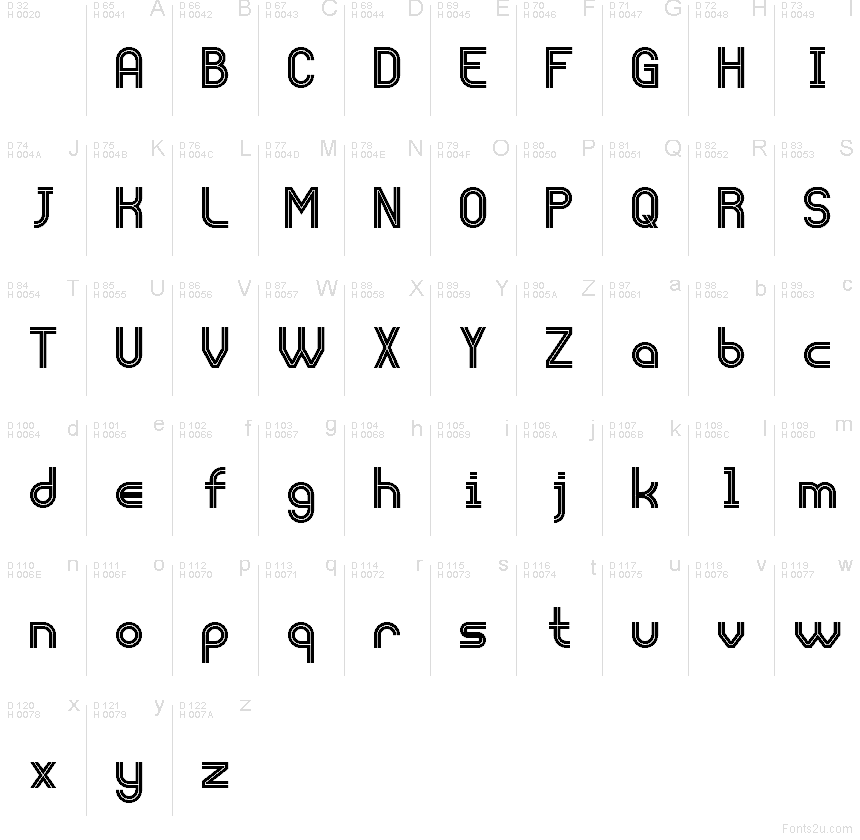
Liquidrom Bold Regular
Liquidrom Bold font by Vladimir Nikolic is a free futuristic outline display typeface in the Liquidrom family. Its smooth, tubular curves and double-line construction feel like glowing neon bent into letterform, giving every word a cool, nocturnal energy. The tight, even rhythm of the strokes keeps it clean and legible while still looking experimental and slightly otherworldly.
This free font shines on nightclub posters, electronic music flyers, sci-fi book covers, tech brand logos, and motion graphics titles. Using Liquidrom Bold in large sizes lets the intricate outline structure really breathe, especially against dark or gradient backgrounds. Pair it with a simple geometric sans serif for body copy to keep layouts sharp, minimal, and forward-looking.